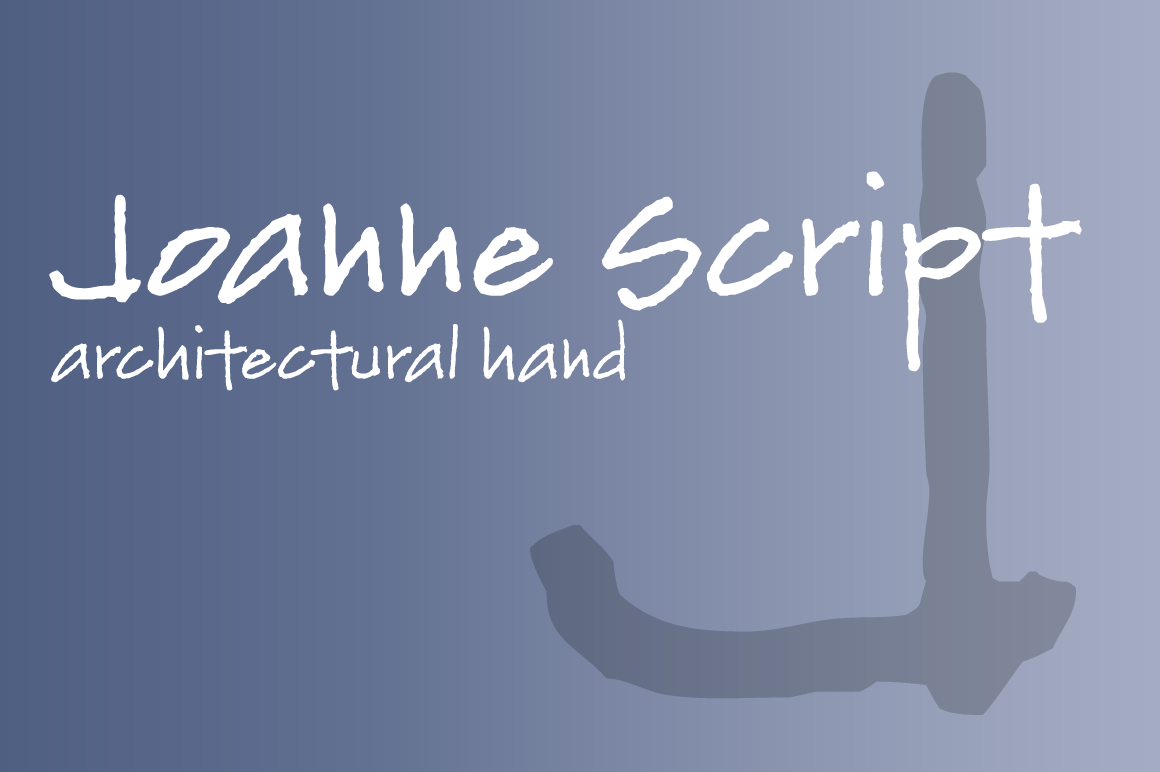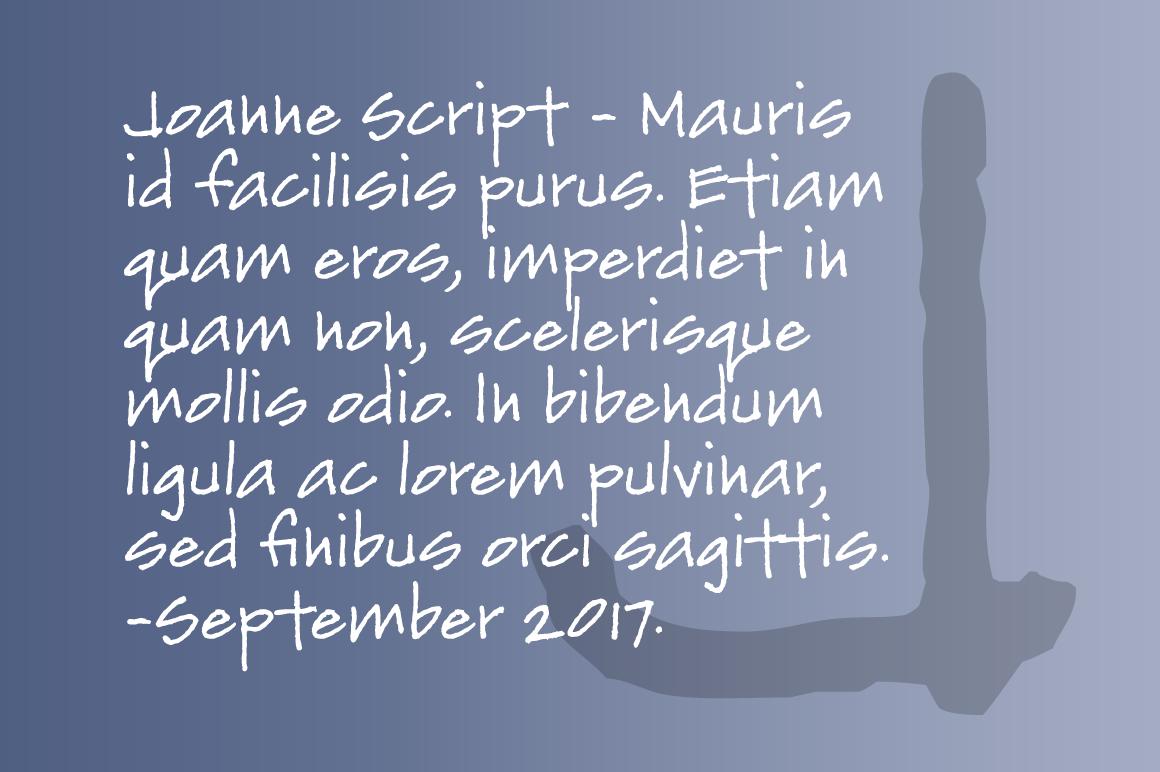
Joanne Font
About Joanne Font
Joanne Script is based on the architectural handwriting of a friend who is a landscape designer. This cool typeface has a sharp, angular feel which lends itself to casual messages, greeting cards, post-its, journals, you name it! Plus, a large complement of characters allows you to send your thoughts in multiple languages.